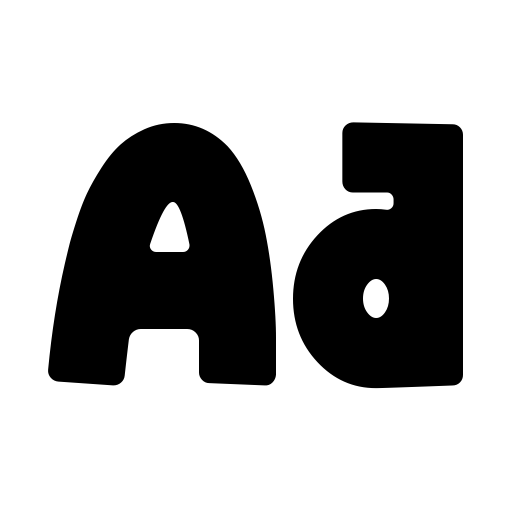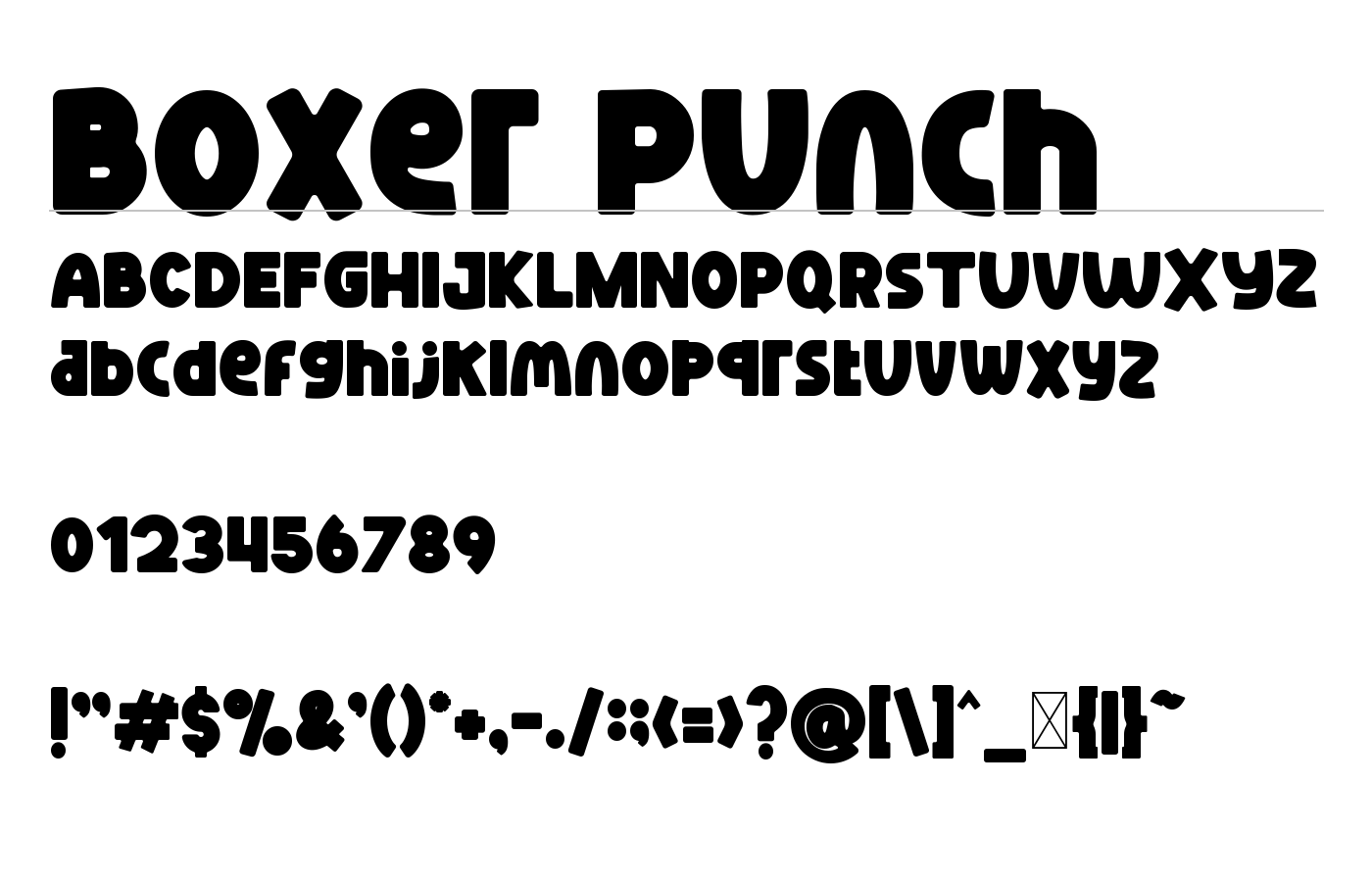
Boxer Punch is a bold, playful sans serif font with thick, rounded letterforms and a strong, energetic presence. Its chunky shapes and lively curves give it a friendly, informal vibe, making it perfect for fun branding, posters, and headlines that need to grab attention with personality. This font works well in designs aimed at a youthful or casual audience, where a bold and approachable look is desired.
Boxer Punch Font
About Boxer Punch Font